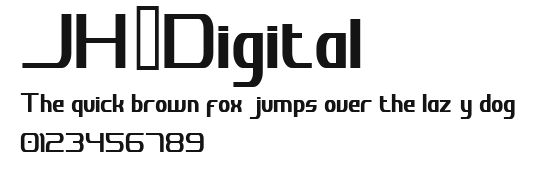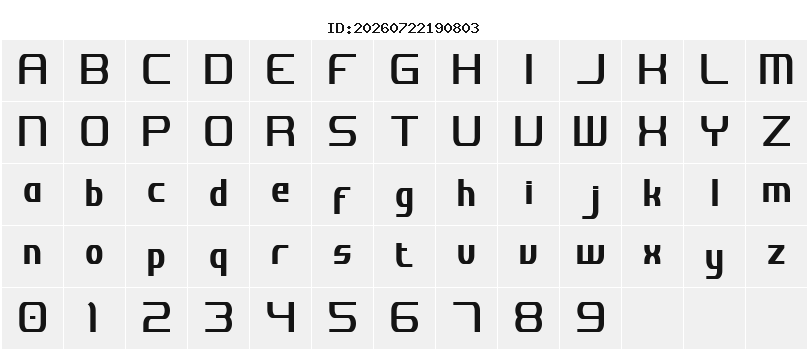
JH_Digital Preview
• Font Name: JH_Digital
• Font Style: Nominal
• Font ID: JH_Digital | Nominal | ©2001 Joiro Hatagaya
• Full Font Name: JH_Digital Nominal
• Version: 0.95 | 05.12.2001
• PostScript Name: JHDigitalNominal
• Character Count: 68
About JH_Digital.ttf
JH_Digital.ttf is a modern, elegant sans-serif font designed for ultimate readability and visual harmony. Perfect for branding, headlines, web design, and print materials.